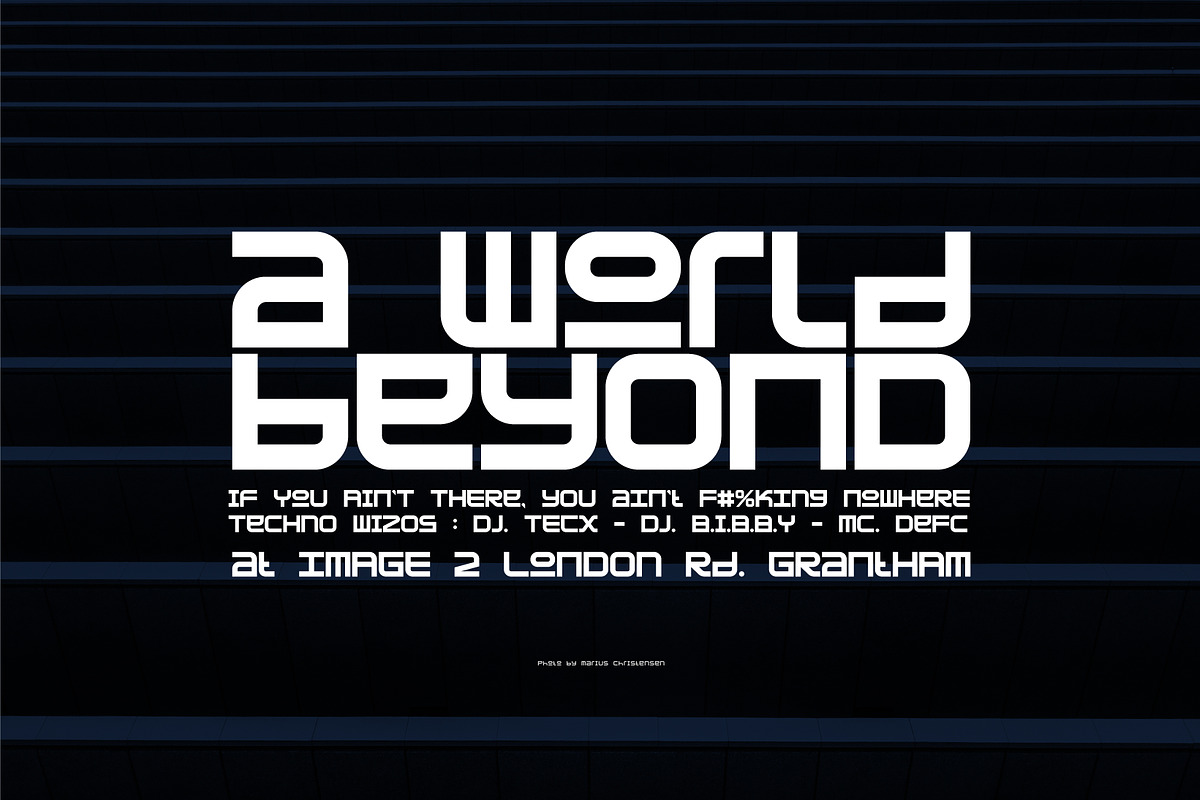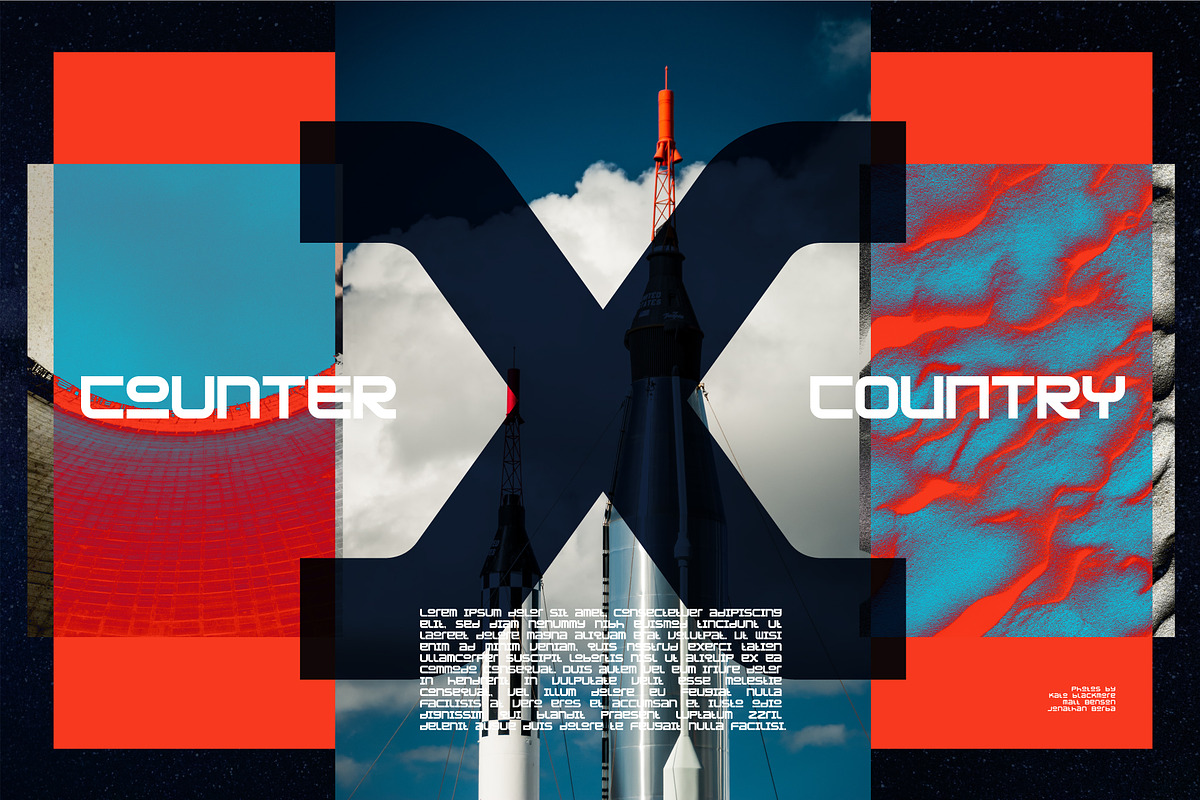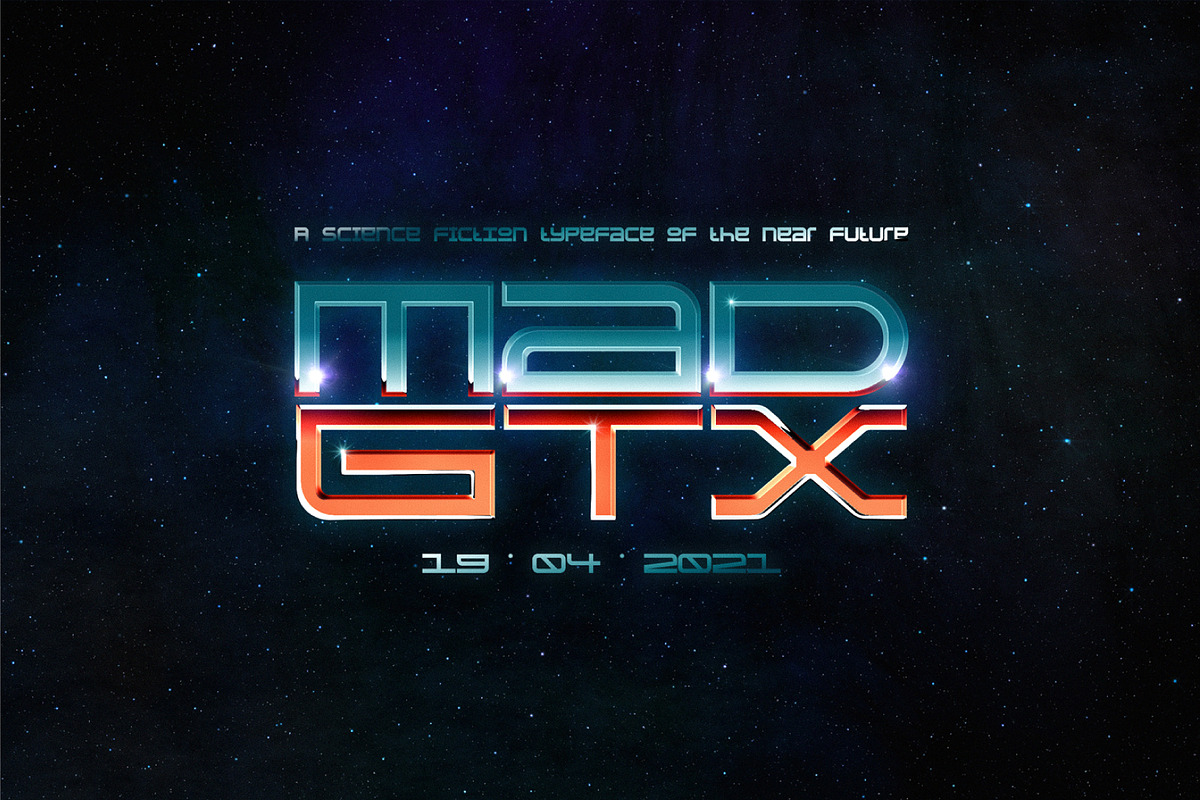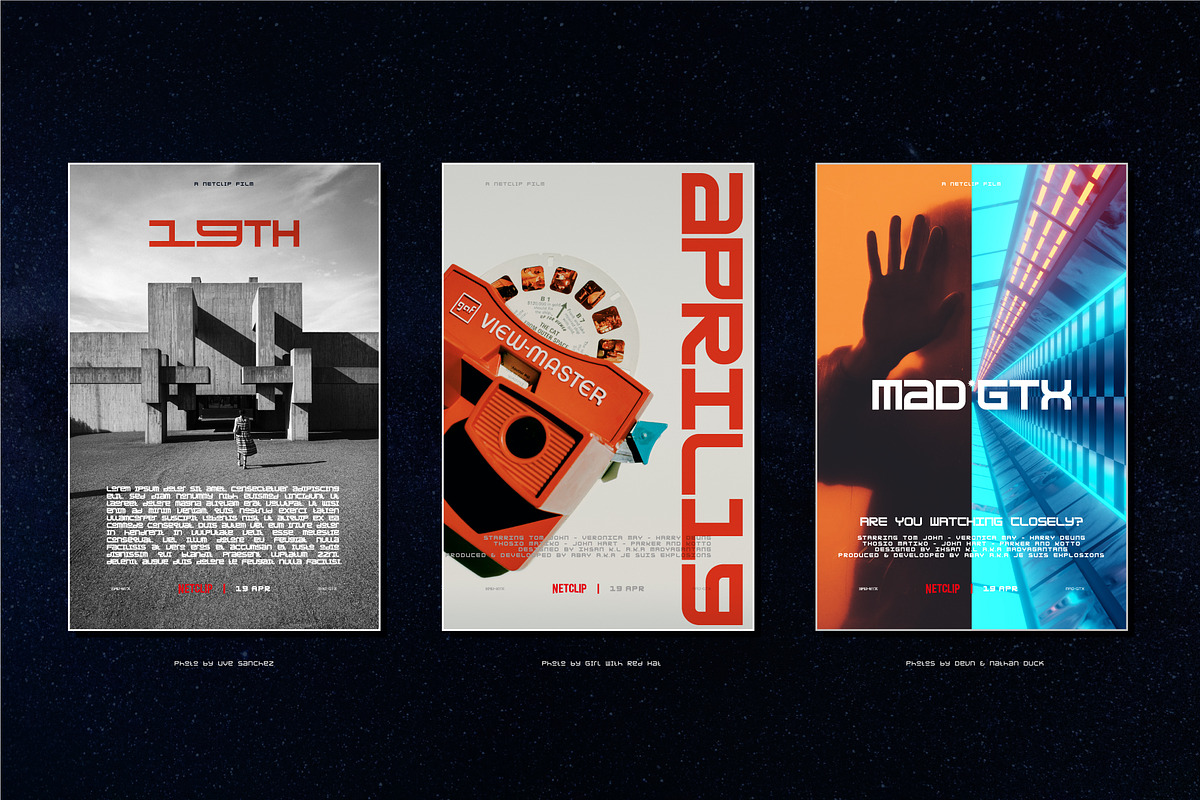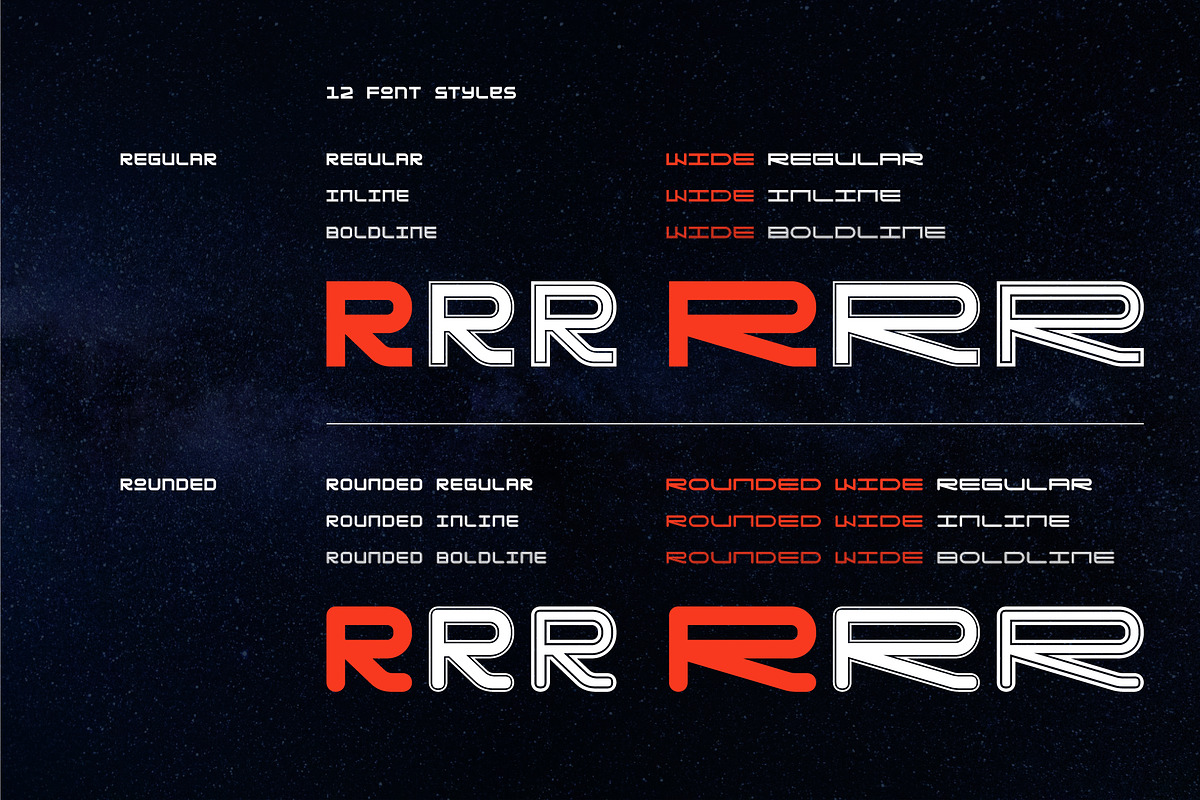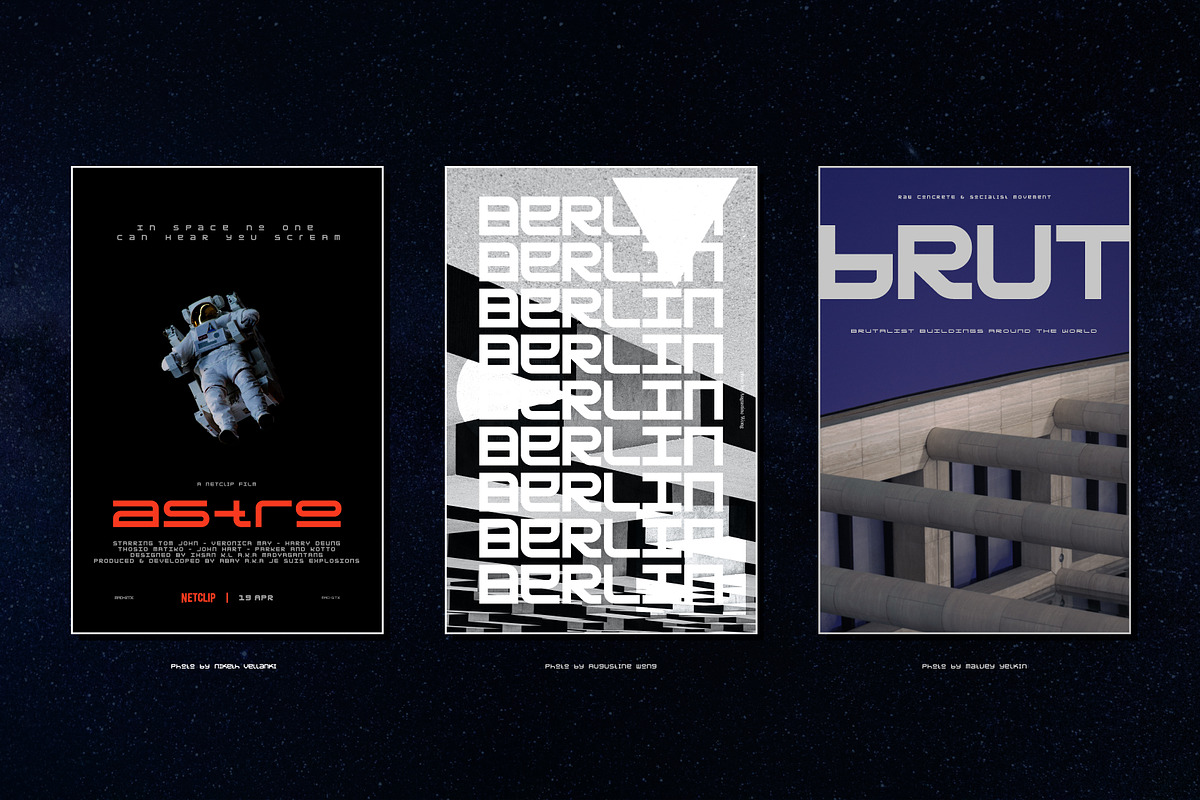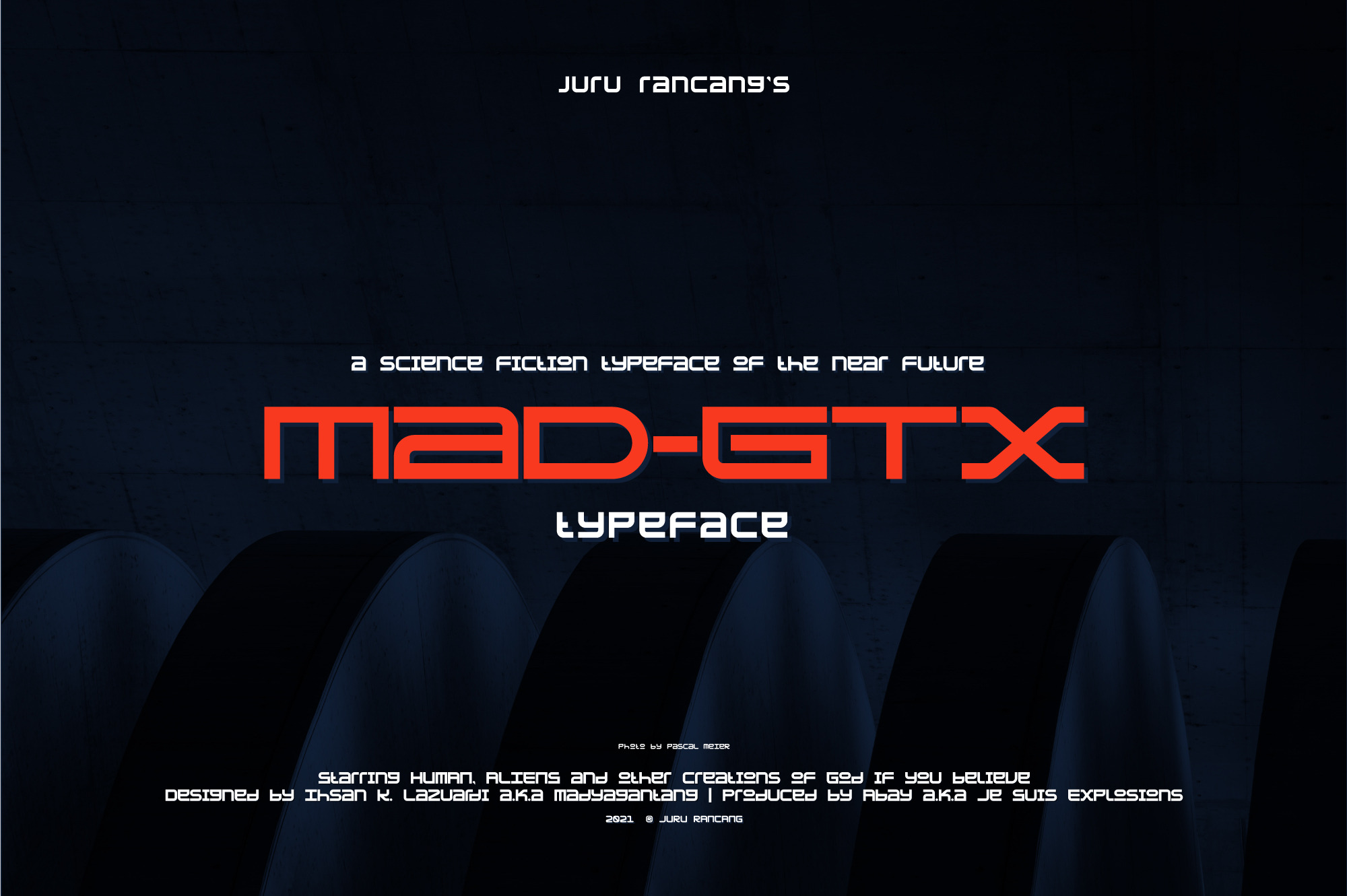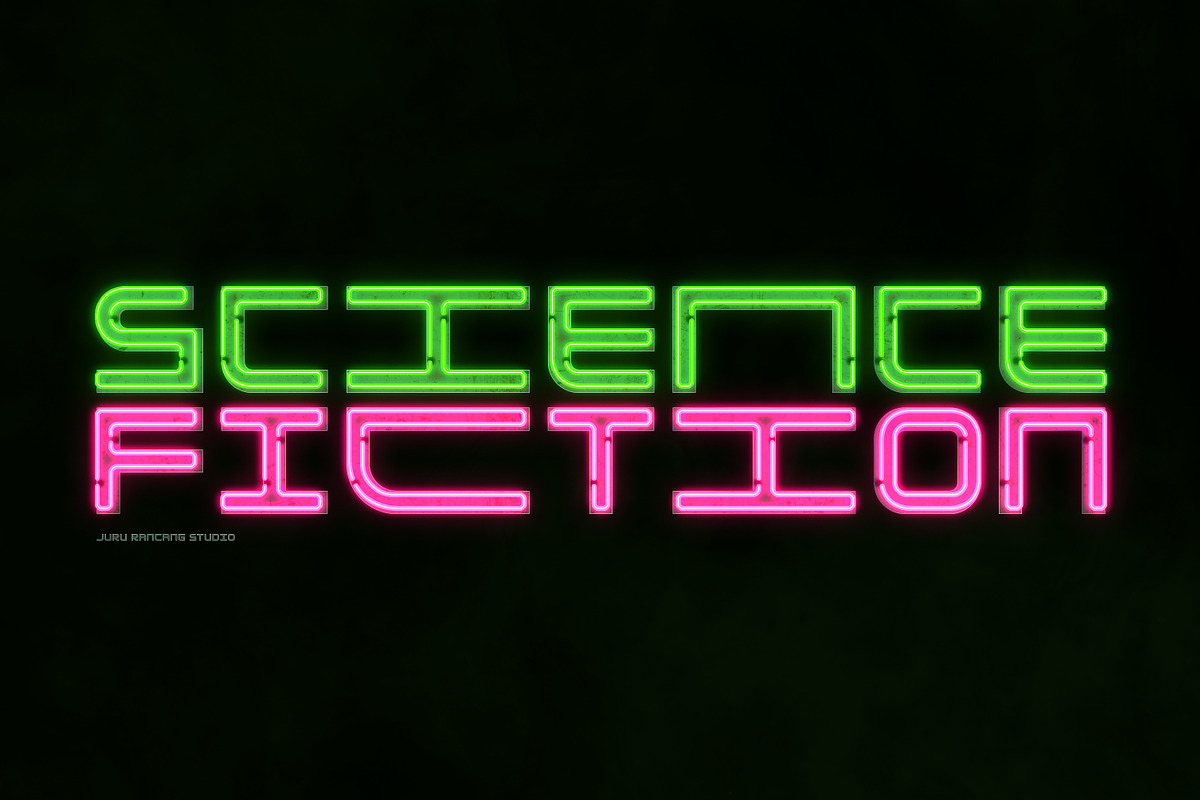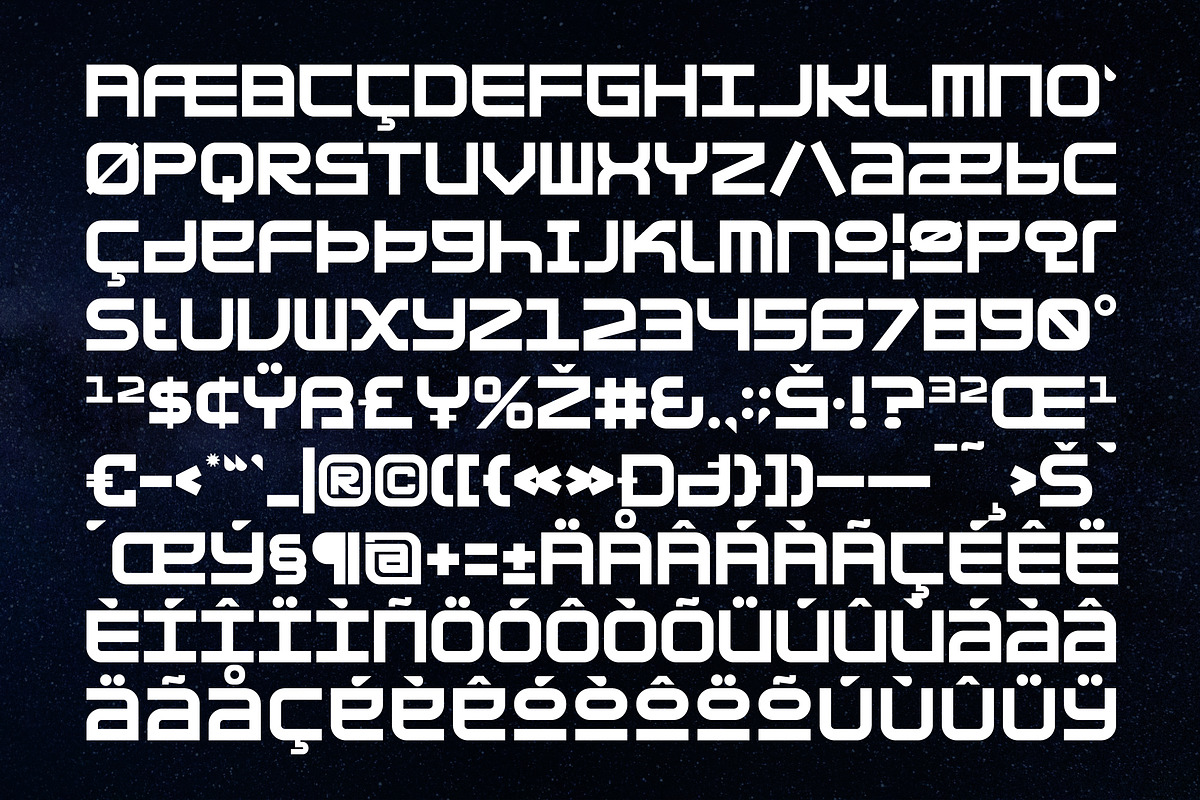
MAD-GTX Typeface
MAD-GTX is an abbreviation of the word "Madyagantang" which means sky in Sanskrit language. MAD-GTX is a sci-fi themed font family of 12 font styles that includes uppercase multilingual letters, alternate letter options (toggled via caps lock), numbers and punctuation.
This typeface is designed to adapt with this wild digital times, formed with modular techniques and very suitable to use as an important complement to various digital designs.